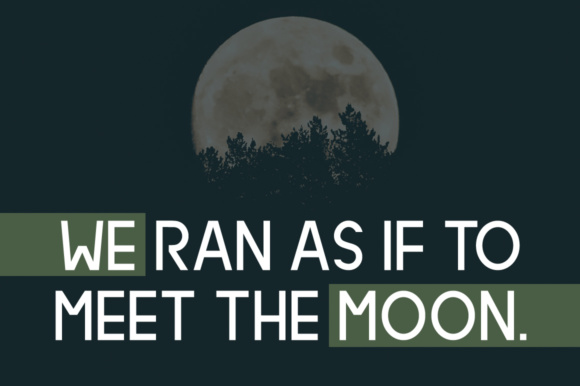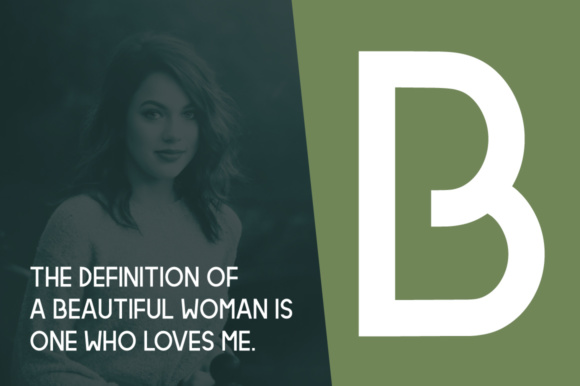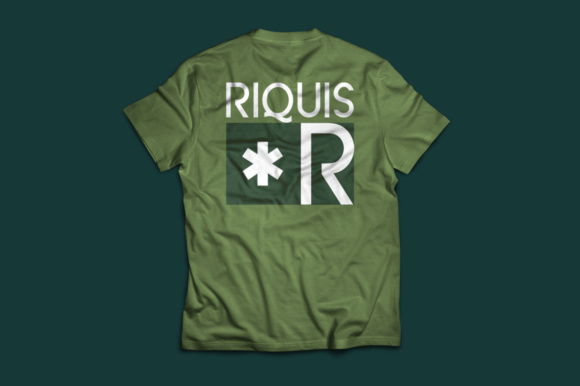
Introduction to Riquis Font
Have you ever been working on a creative project, pouring your heart and soul into it, and then the perfect font suddenly pops into your head? For designers, that ‘aha’ moment is priceless. It’s the spark that sets the tone for an entire design. For those who have been searching for that elusive font, the wait is over. Introducing the Riquis Font, a game-changing addition to your design resource arsenal.
This high-quality font is designed to elevate your designs, from stationery and logos to website headers and music covers. With its versatility, you can use it on a wide range of creative projects, from flyers and posters to image sliders and photo frames. And the best part? It’s available for a free download, making it an accessible resource for designers of all levels.
Whether you’re working on a personal or professional project, the Riquis Font is sure to be a valuable addition to your design toolkit. Its transparent background and high-quality design make it perfect for any creative project, and its free download option means you can get started right away.
Key Features of Riquis Font
- Features a unique, modern design with a clean and minimalist aesthetic.
- Includes a wide range of characters, including uppercase and lowercase letters, numbers, and punctuation marks.
- Supports a variety of languages, making it a versatile design resource for international projects.
Honest Review: Riquis Font
As a designer, I’m always on the lookout for high-quality design resources to elevate my creative projects. Recently, I stumbled upon the Riquis Font, and I’m excited to share my honest review with you.
What works well: ✨ The Riquis Font is a beautiful, modern sans-serif font that’s perfect for contemporary designs. I love the clean lines and sleek feel it brings to any project. Plus, it’s a free download, making it an excellent addition to any designer’s toolbox.
- Modern sans-serif style suitable for a wide range of creative projects
Limitations: ⚠️ While the Riquis Font is a great addition to any design library, it’s not without its limitations. The font family is relatively small, and it may not be suitable for large-scale projects that require multiple font weights.
Overall, I’m impressed with the Riquis Font. It’s a great resource for designers who want to add a touch of modernity to their creative projects. While it may have some limitations, its high-quality design and free download make it a valuable addition to any design library.
Riquis Font
Tips for Getting the Most Out of Riquis Font
Experiment with different font sizes, colors, and styles to get the most out of Riquis Font. Use it to create custom headings, titles, or even use it as a design element in your creative project. With its high quality design and transparent background, the possibilities are endless.
Riquis Font is perfect for a variety of applications, including wedding invitations, business cards, and social media graphics. Its high quality design and transparent background make it a versatile design resource for any creative project.
Is Riquis Font suitable for high-quality design projects?
Yes, Riquis Font is designed to be a high-quality design resource. It features a transparent background, making it perfect for creative projects that require a clean and minimalist look. The font is also highly customizable, allowing you to adjust its size, color, and style to suit your design needs.